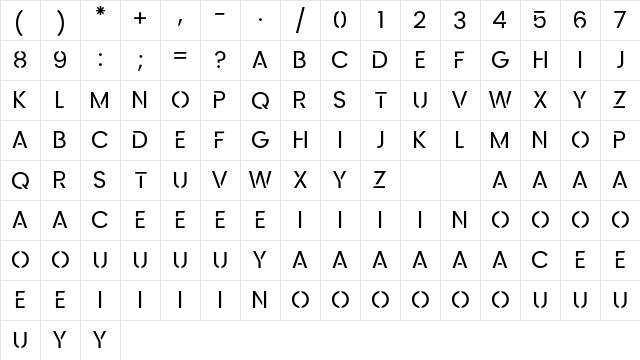
Kerox-NonCommercial Regular
| Designer | Robin Campistron |
Design Context for Kerox-NonCommercial Typeface
Kerox-NonCommercial offers clean, dependable letterforms without strong stylistic allegiance, making it a practical choice for designers who need flexibility.
Pro Tip: Use Kerox-NonCommercial in both headline and body roles to test its range before committing to a single application.